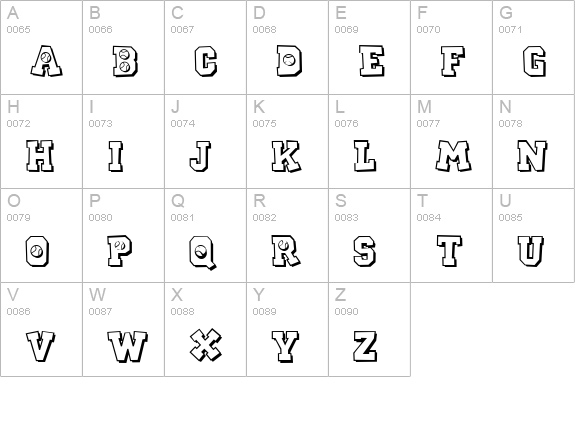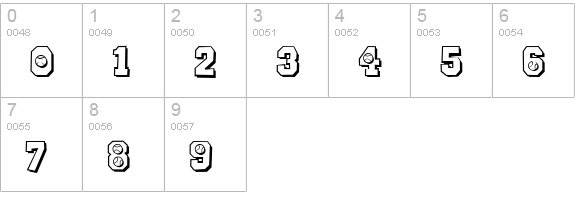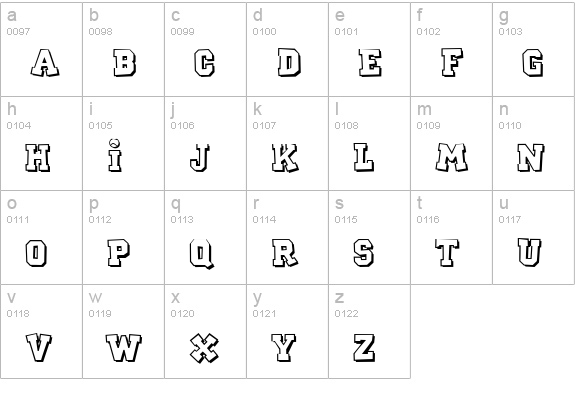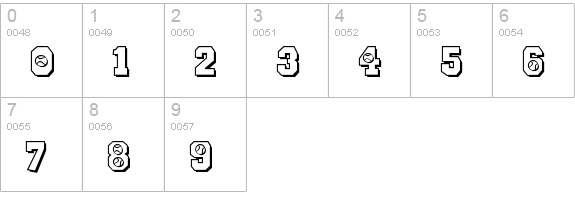
CK Sports Tennis Font Details
Introducing CK Sports Tennis font - a sleek and modern typeface perfect for capturing the energy and excitement of the tennis court. This dynamic font features bold, sporty lettering that is sure to make a statement in any design project. With its clean lines and sharp angles, CK Sports Tennis font exudes a sense of speed and agility, making it an ideal choice for sports-related graphics, posters, and branding materials. Best of all, CK Sports Tennis font is available for free download at FontsMarket.com. Whether you're designing promotional materials for a tennis tournament, creating a sports-themed logo, or simply looking to add a touch of athleticism to your designs, this versatile font is sure to impress. Don't miss out on the opportunity to elevate your projects with the bold and dynamic CK Sports Tennis font - download it for free today!